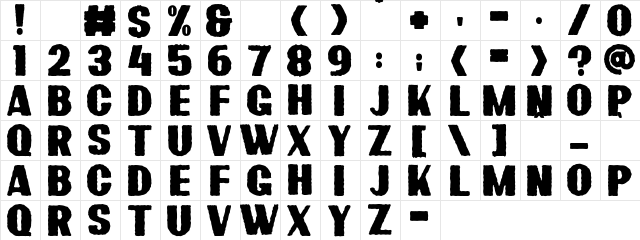
Bardon Rough Demo Rough
Design Context for Bardon Rough Demo Typeface
Bardon Rough Demo trades polish for personality, using distressed and eroded forms to bring grit and attitude to creative work.
Suited to punk-influenced zines, underground music branding, streetwear, and raw, anti-corporate design.
Pro Tip: Pair Bardon Rough Demo with intentionally raw or lo-fi design elements. Fighting against it with overly polished surroundings will undermine its personality.